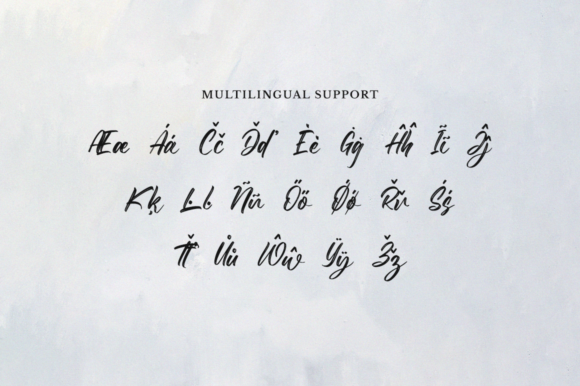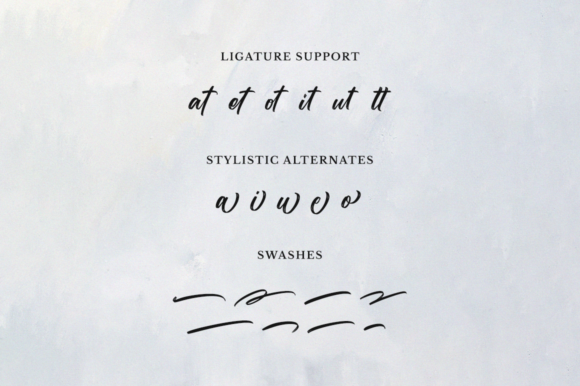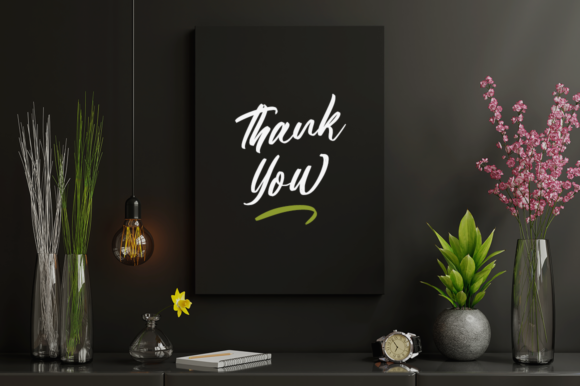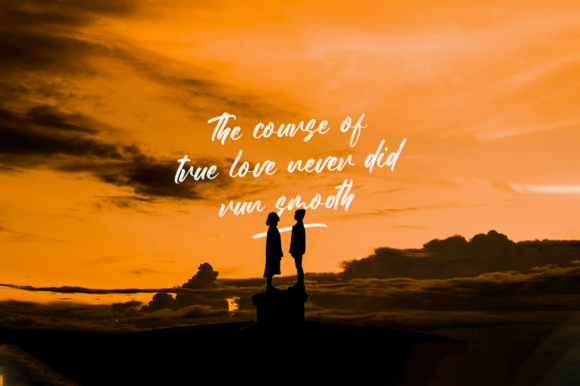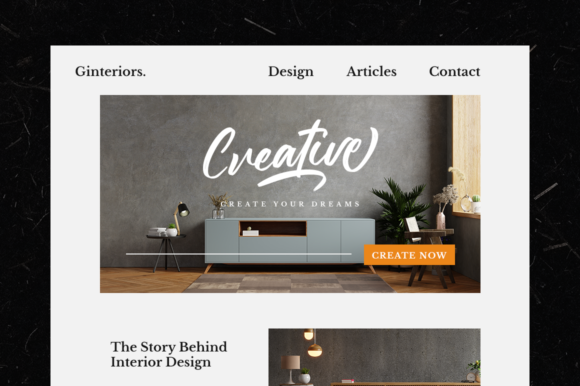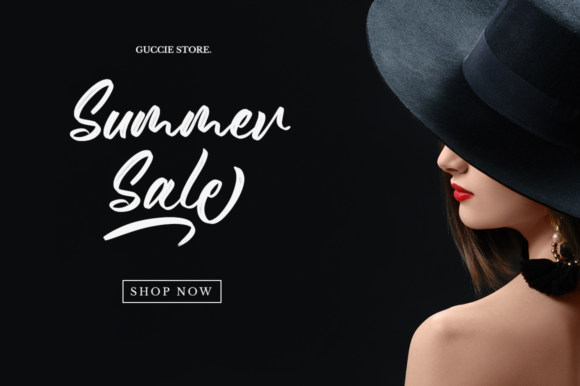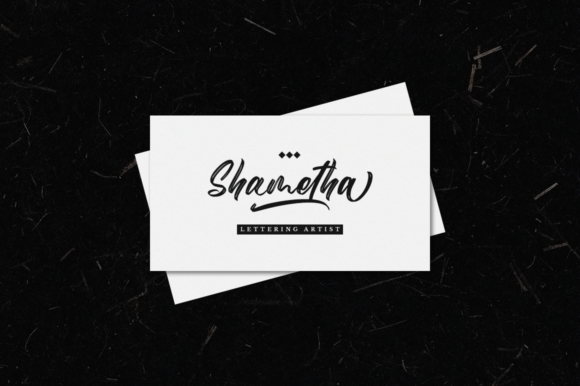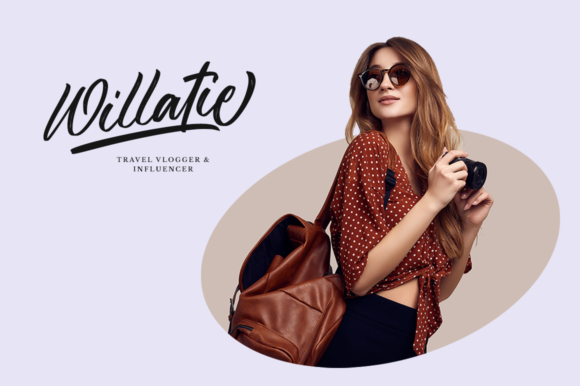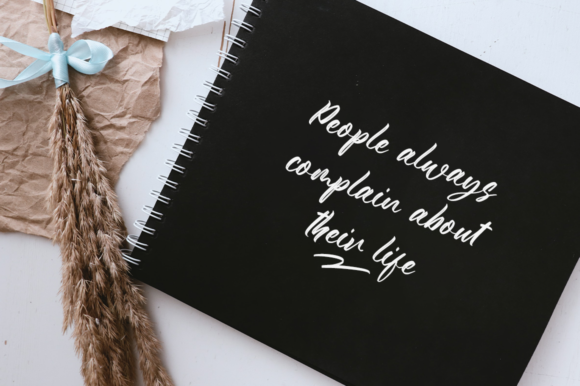
The Brithania Font
About The Brithania Font
The Brithania is an elegant and dainty handwritten font that features sweet and delicate swashes. This original look will appeal to a wide range of crafty ideas, from letterheads and titles, to stationery.